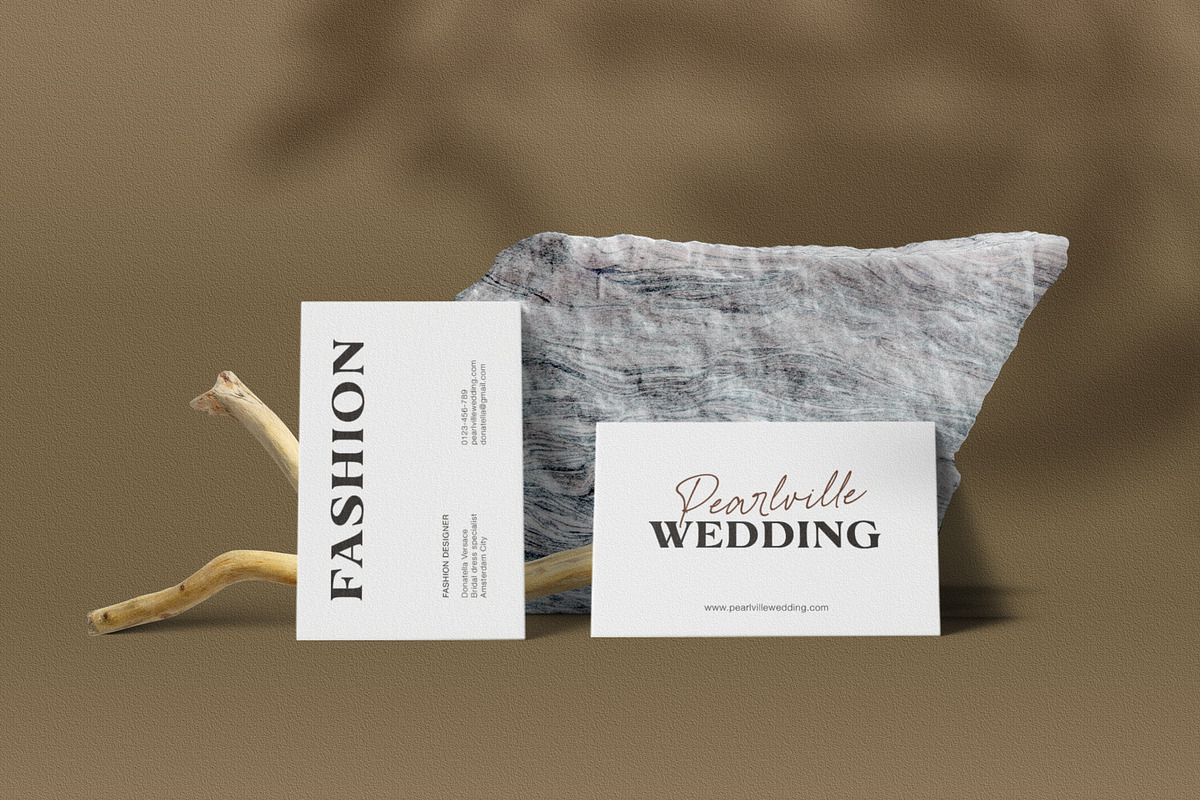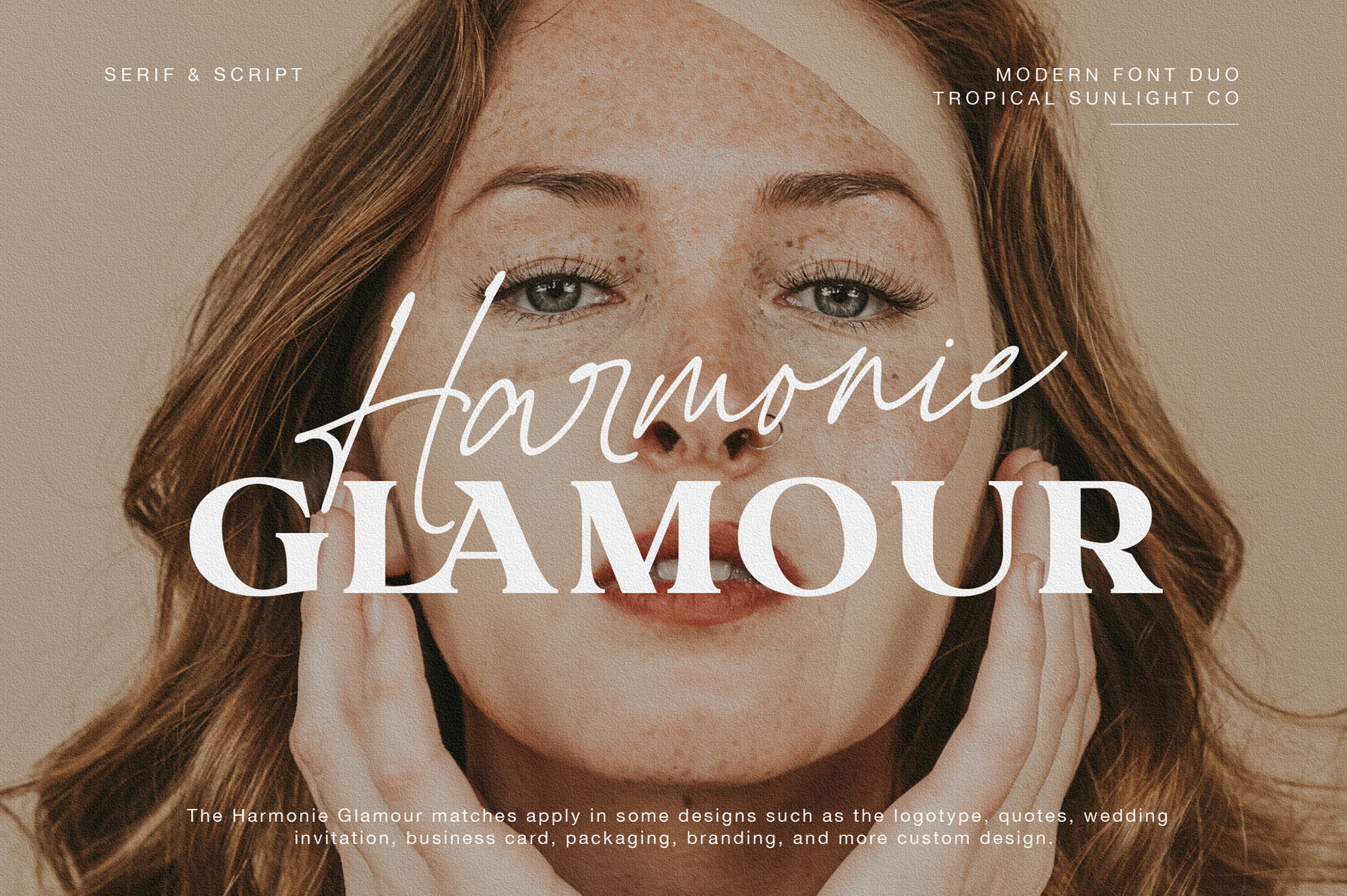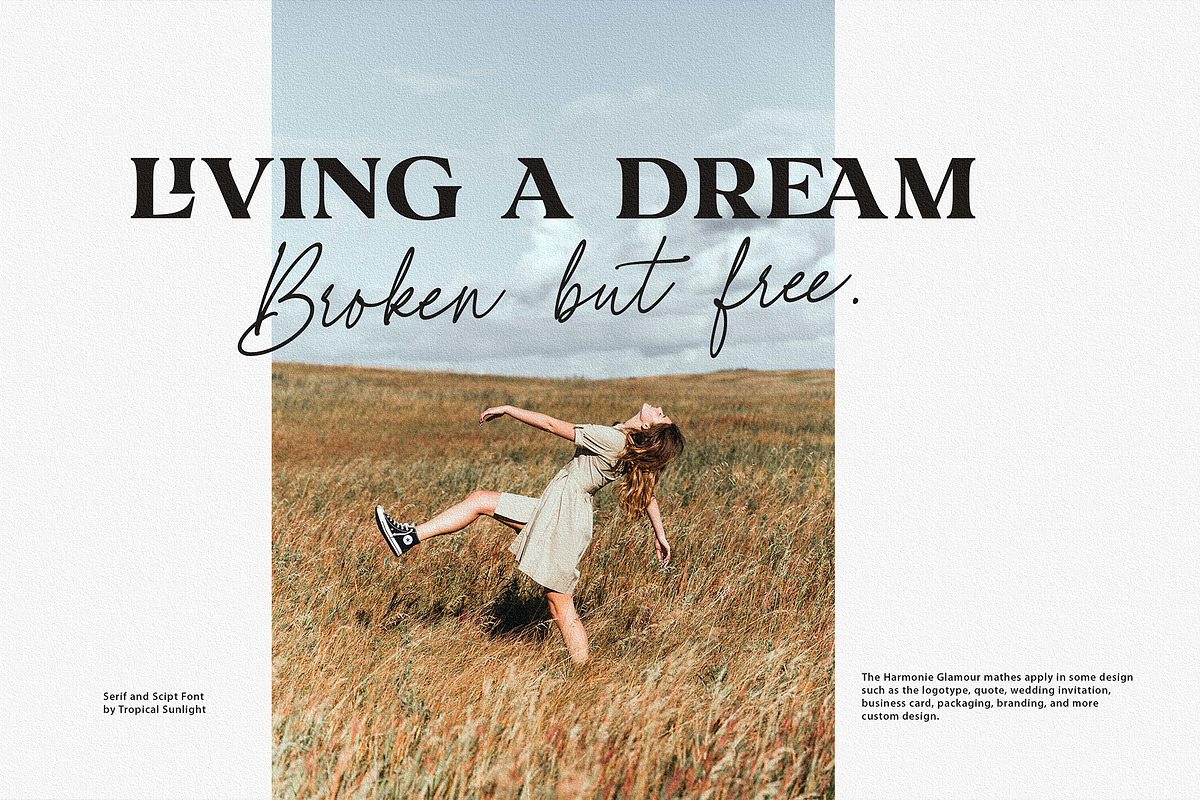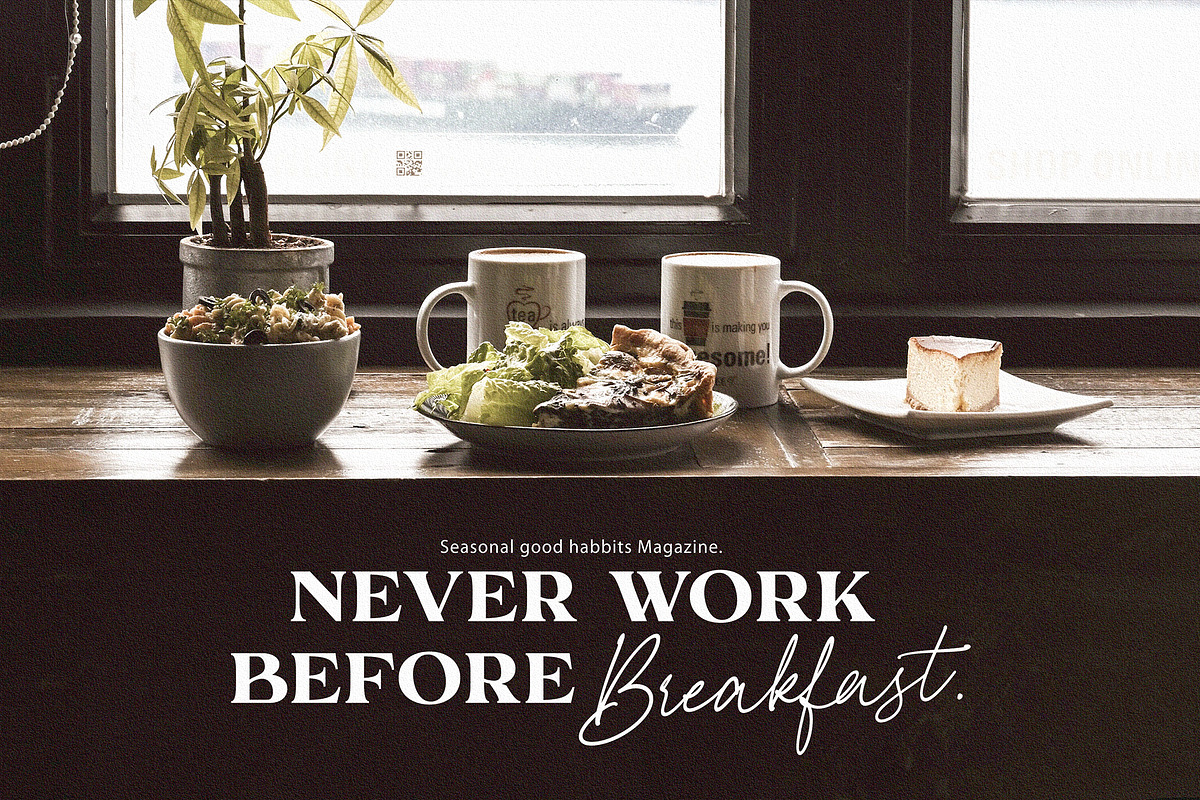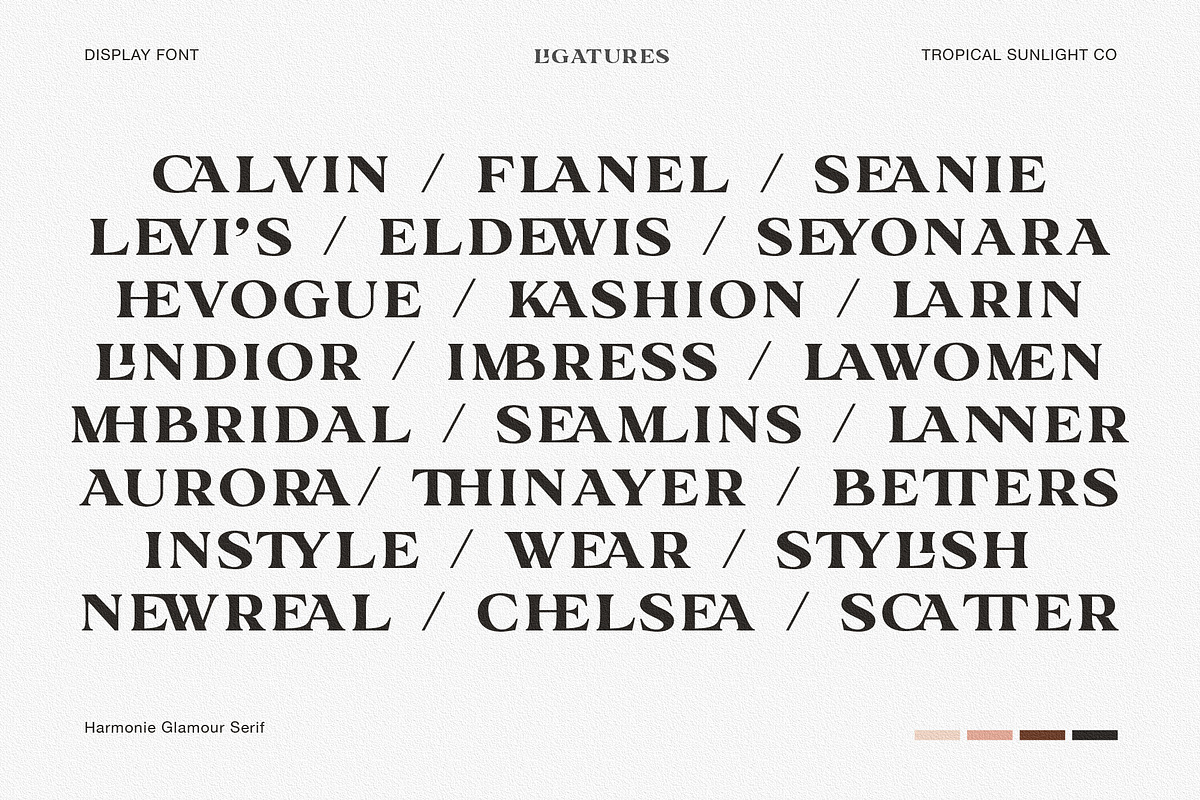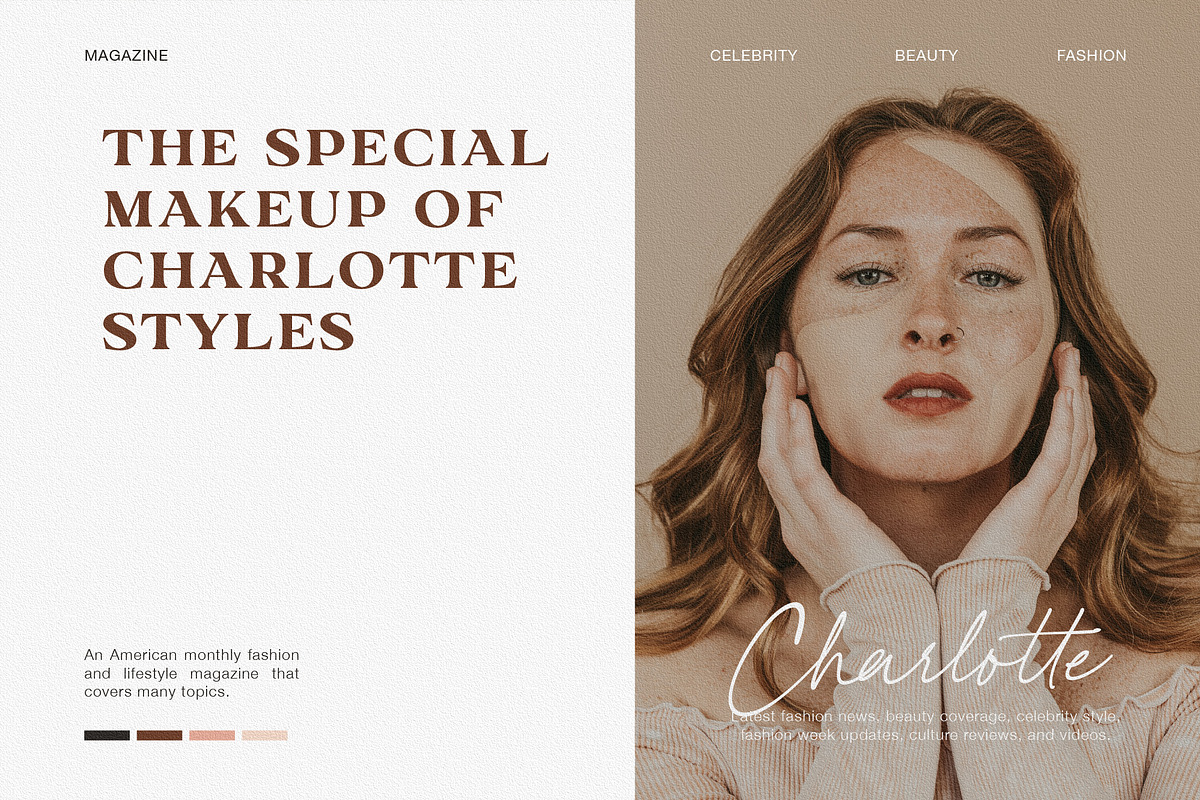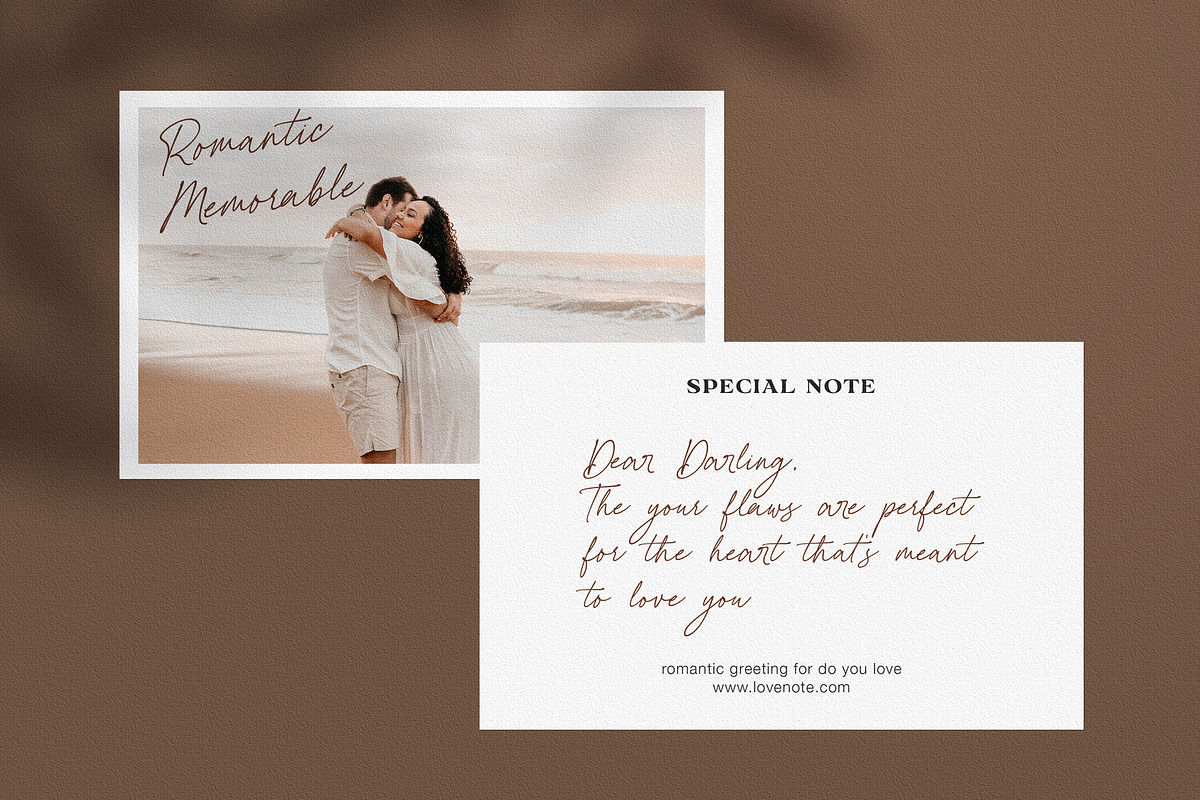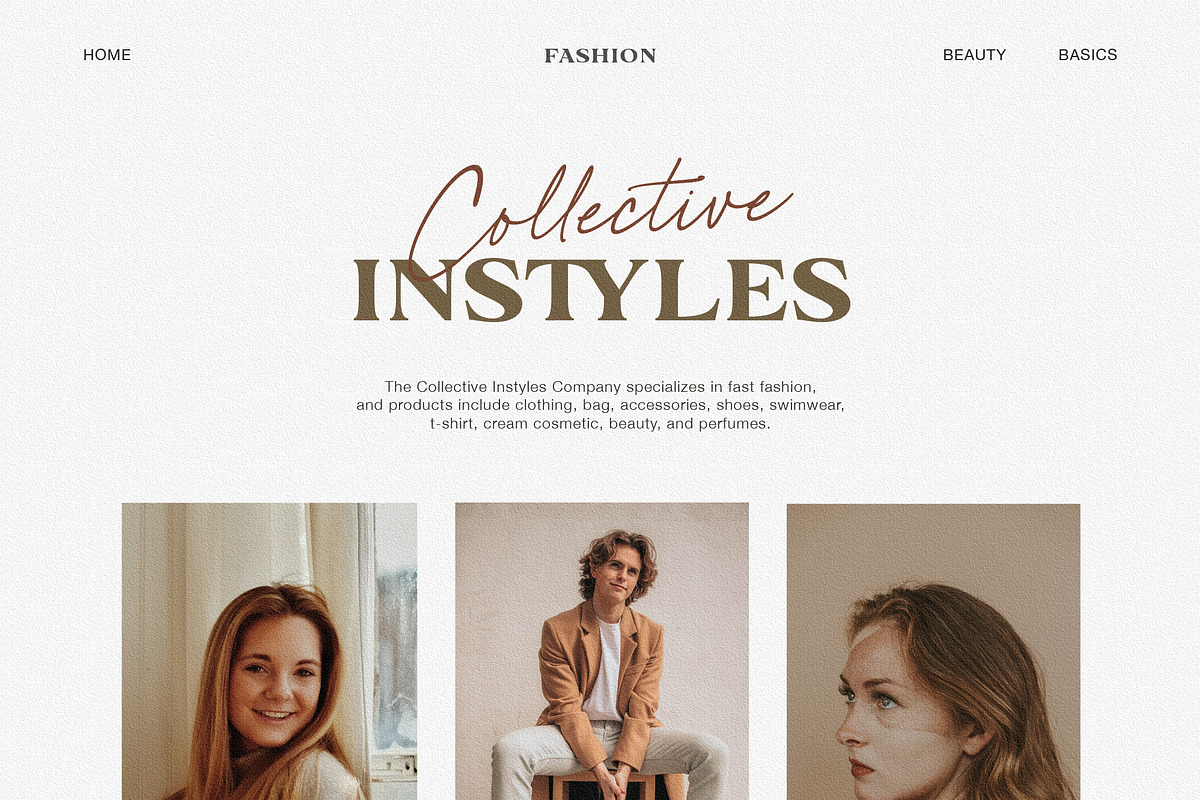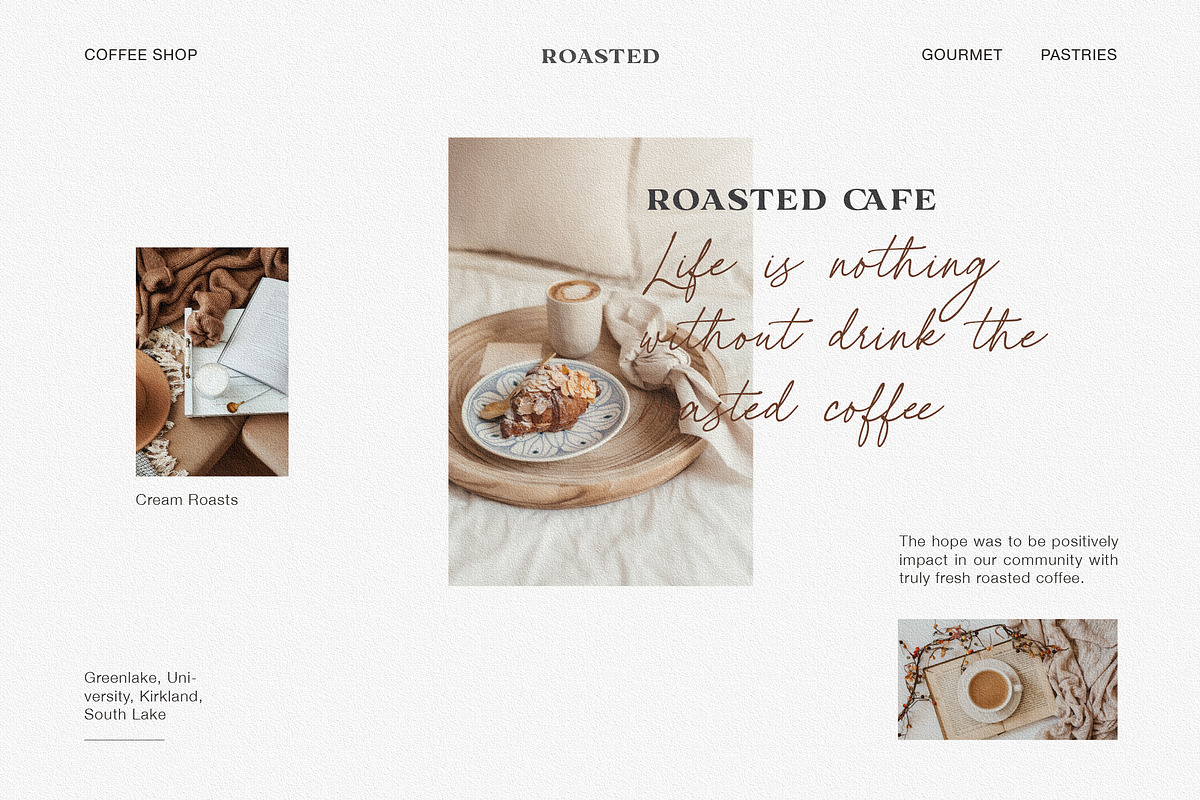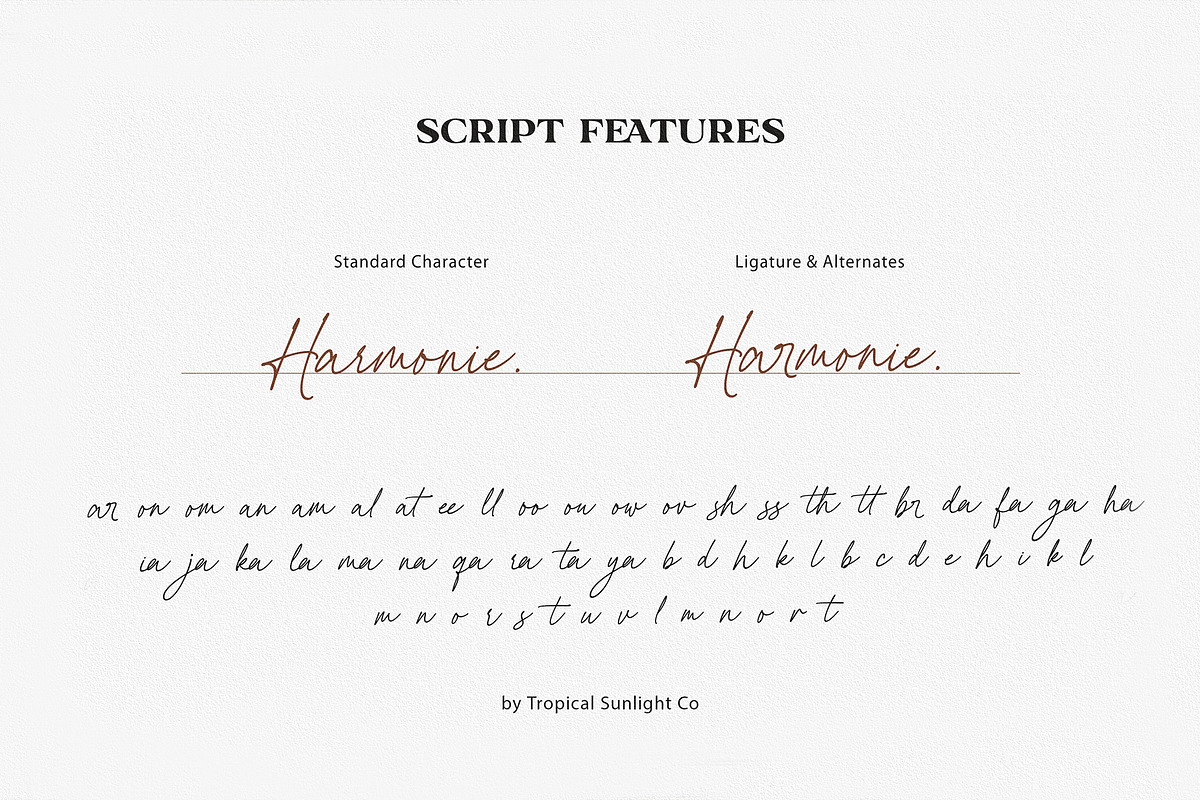
Harmonie Glamour - Modern Font Duo
The font is called "Harmonie Glamour", it is font duo with fashionable themes. The font comes with two pairing typefaces (script and serif). Script font contains set alternates and some ligatures. Harmonie Glamour matches apply in some designs such as the logotype, quotes, wedding invitation, business card, packaging, branding, and more custom design.
Harmonie Glamour includes :
- Uppercase, lowercase, numeral, symbol and punctuation, alternate, ligature in script font
- All-caps, numeral, symbol, punctuation and ligature in serif font